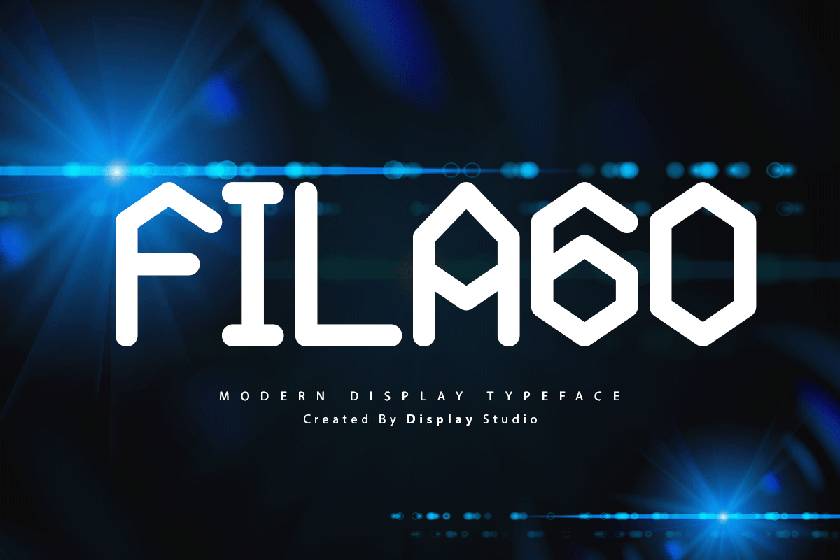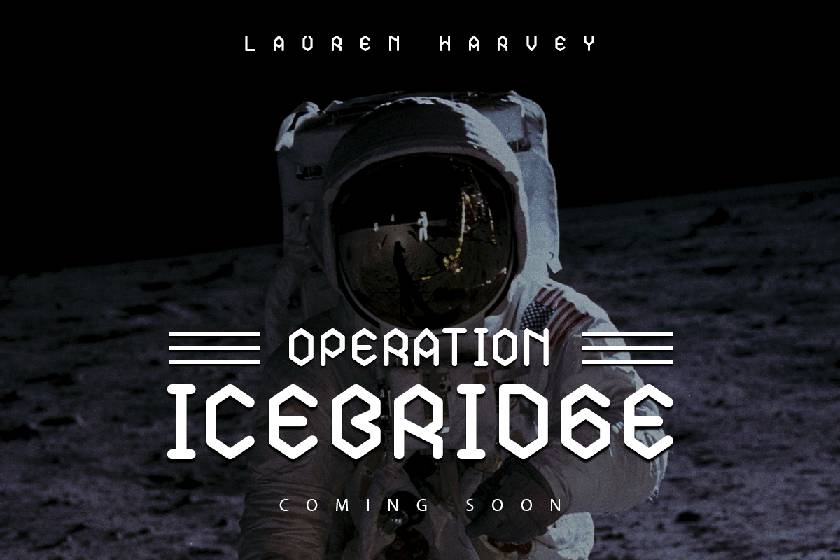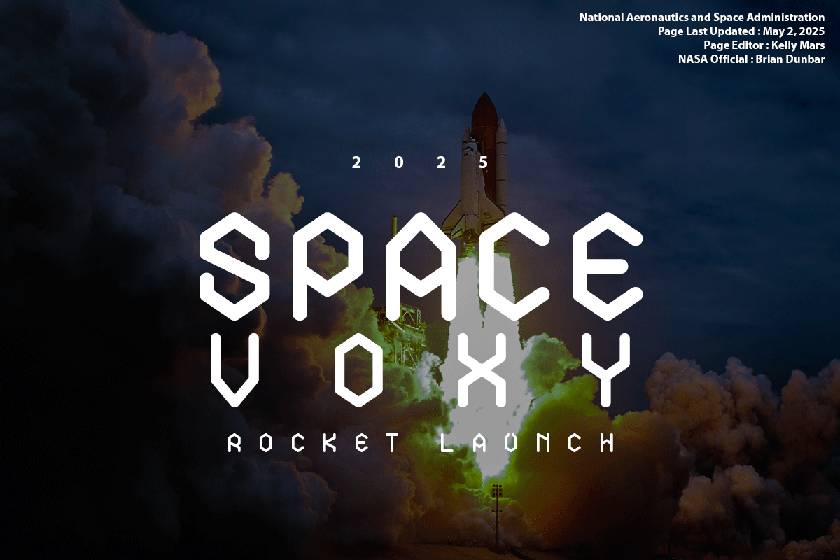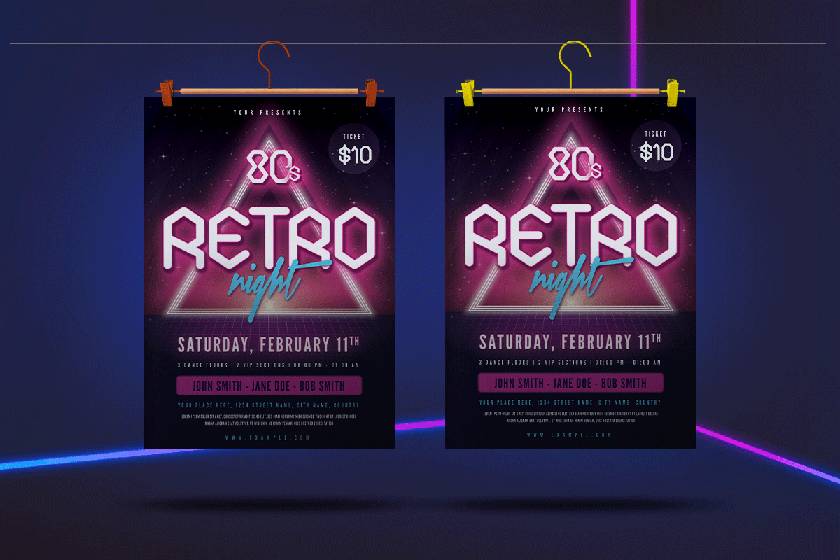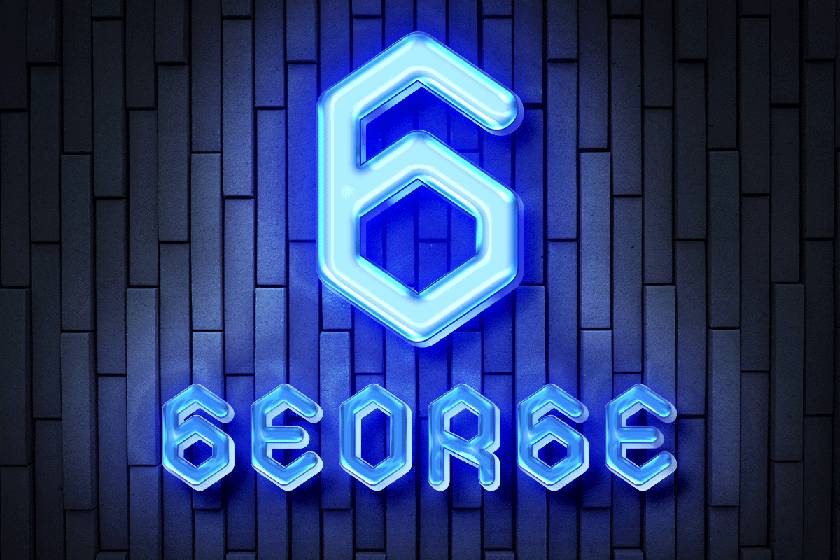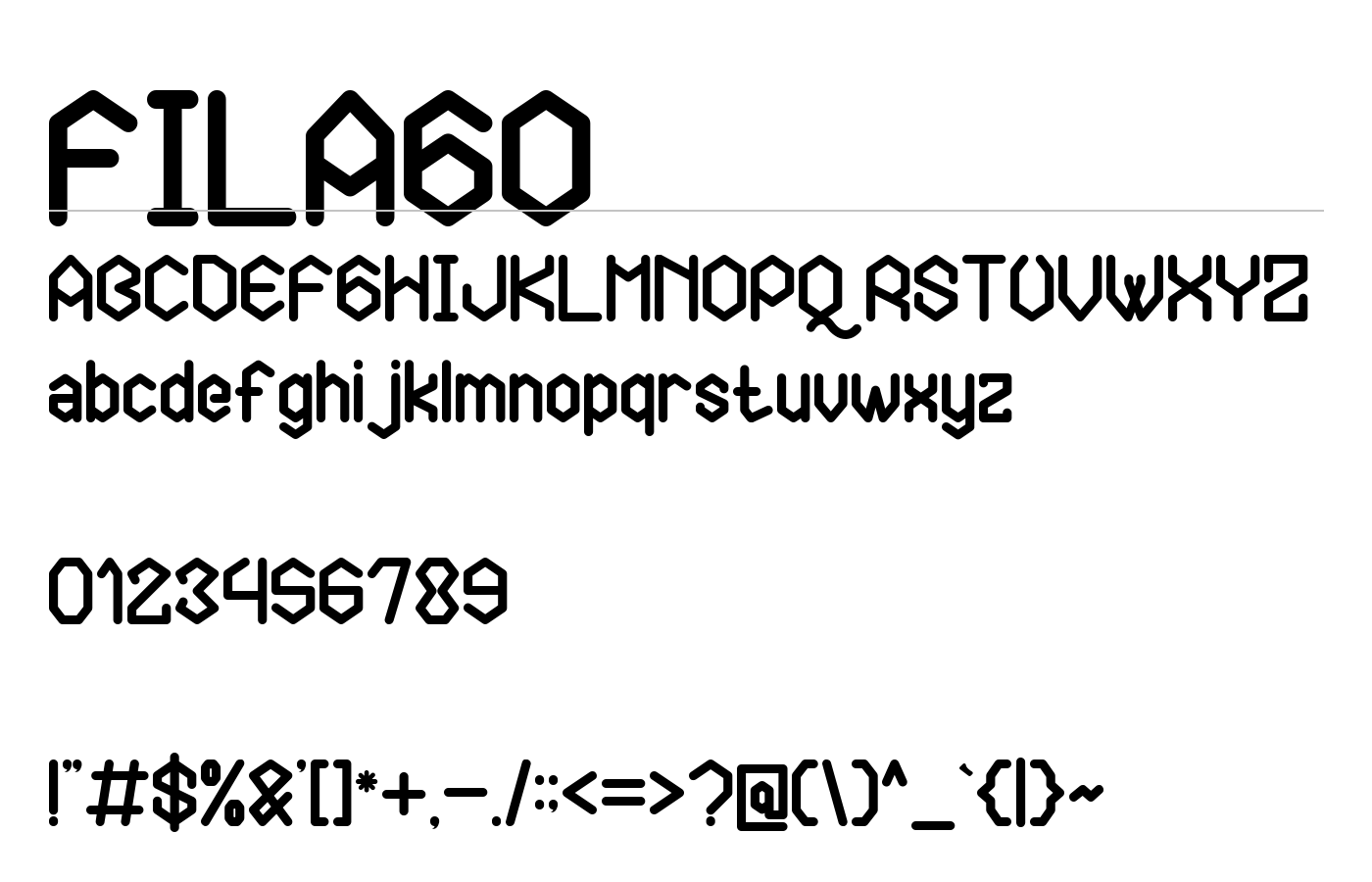
Filago is a distinctive sans serif font characterized by its geometric, almost hexagonal letter shapes with consistent stroke weight and rounded corners, giving it a modern and slightly technical feel. Its unique angular forms and monolinear structure make it stand out for creative projects that seek a futuristic or digital-inspired look, ideal for logos, tech branding, and eye-catching headlines.
Filago Font
About Filago Font
| Font family | Filago Font |
| Release date | 2021-11-22 |